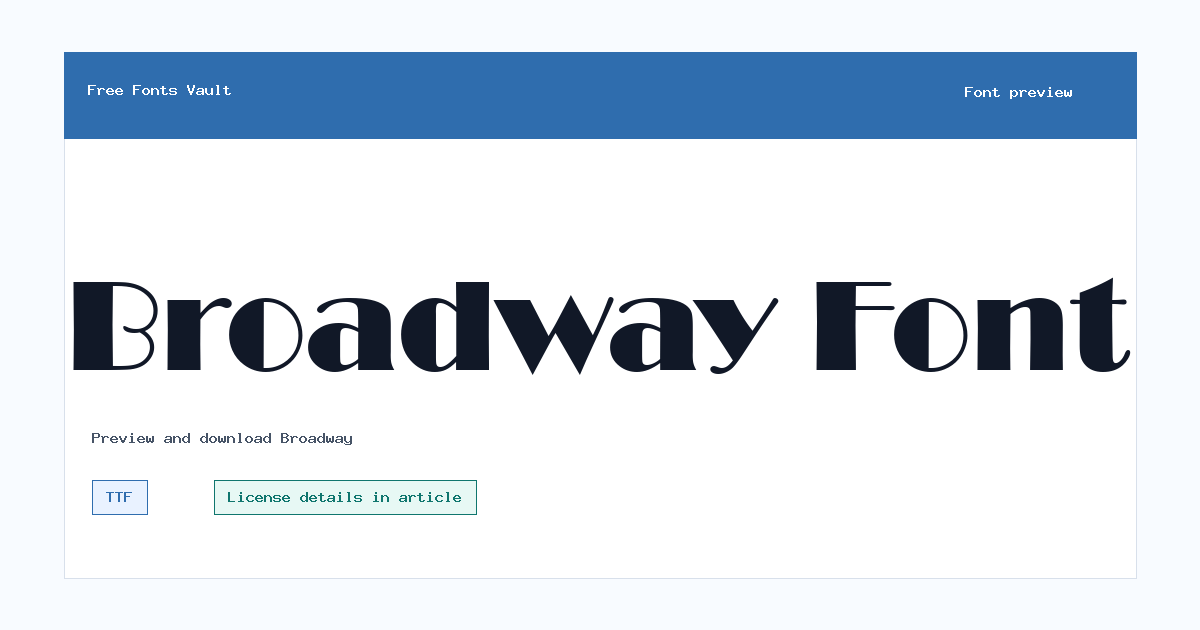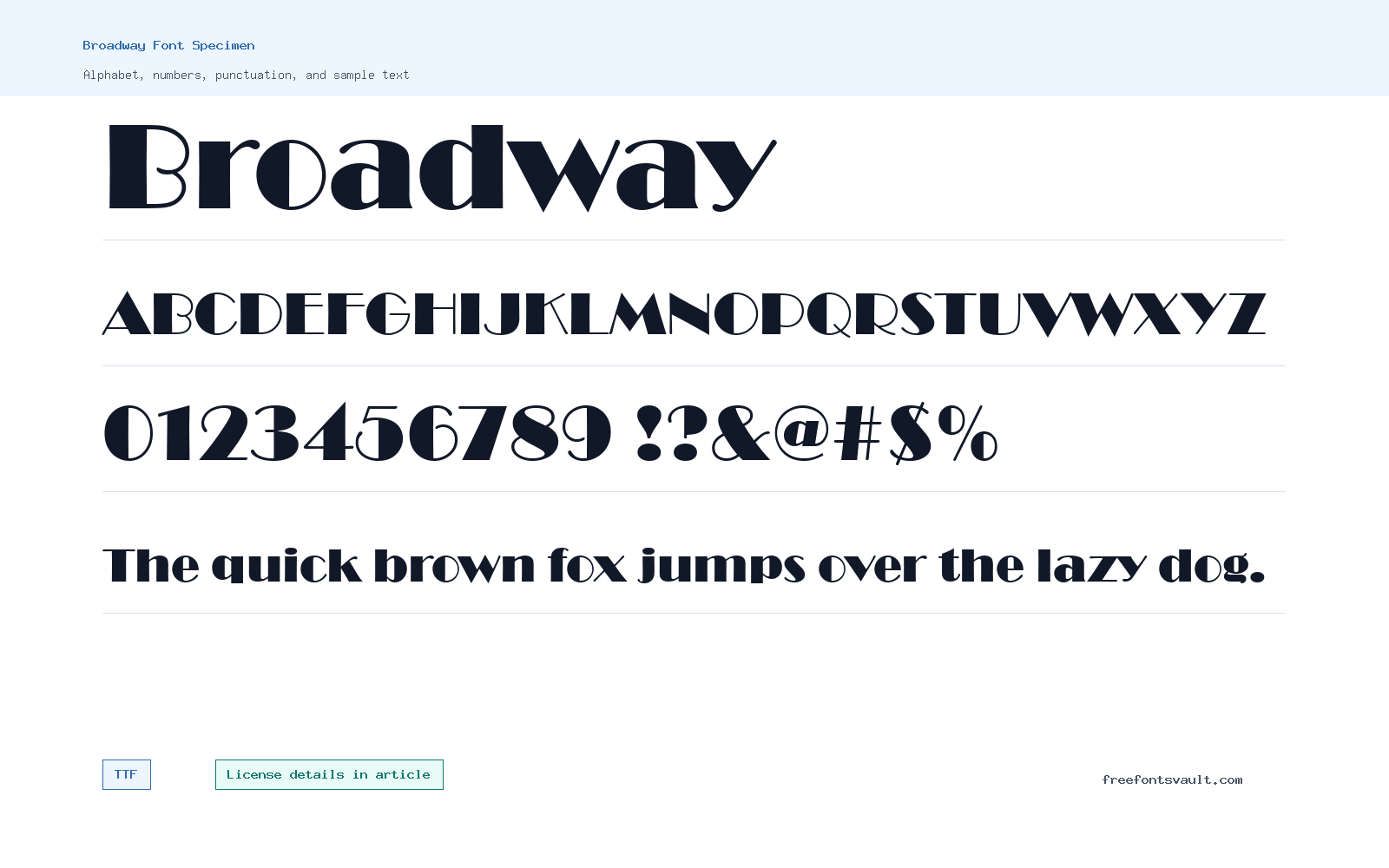
Broadway
Broadway font.
Broadway is a decorative display font with a strong Art Deco feel. It is best used at larger sizes, where its bold shapes and high-contrast letterforms can stand out clearly.
About Broadway Font
Broadway is known as an Art Deco display typeface, with sources connecting the design to Morris Fuller Benton, American Type Founders, and later work by Sol Hess. The version offered here is a regular TTF file, making it easy to test in common design apps and preview tools.
Use Broadway for short text rather than long reading. It works well for poster titles, event graphics, menu headings, theatrical layouts, vintage-style labels, and logo-style mockups. Because the style is decorative, test your exact words in the preview before downloading, especially if you need small sizes or mixed-case text.
Broadway has a theatrical mood, so it works best when the design is comfortable being noticed. Give it space, use it for one main message, and avoid stacking too many decorative fonts around it. A simple background and a quieter companion font usually make Broadway look more polished.
If you are testing it for a logo, poster, restaurant menu, or event title, preview the final wording rather than judging only the alphabet. Some decorative letters create strong shapes next to each other, and small spacing changes can make the difference between a charming vintage look and a crowded headline.
- Decorative Art Deco style with high contrast and strong display presence
- Strong vintage personality for one-line titles and logo-style mockups
- Best supported by simple companion typography for practical information
- Posters, signs, event titles, and theatrical-style headings
- Vintage-inspired labels, menu headers, invitations, and short display text
- Jazz-age graphics, theatre posters, restaurant branding drafts, and event announcements
References for Broadway connect the typeface with Morris Fuller Benton and American Type Founders, with Sol Hess also named in later Broadway-related sources. The file copyright line names URW Software & Type GmbH, The Monotype Corporation, and Microsoft Corporation.
Keep the font for short, attention-grabbing text. Pair it with a plain serif or sans serif for body copy, and check spacing carefully because decorative display letters can look tight in longer words.
What kind of font is Broadway?
Broadway is a decorative Art Deco display font suited to large headlines and short design text.
Is Broadway good for body text?
No. Its display style is better for titles, signs, posters, and short labels than paragraphs.
Who designed Broadway?
Broadway is commonly associated with Morris Fuller Benton and American Type Founders, while Sol Hess is also named in sources for Broadway-related additions. The specific TTF file here carries copyright notices for URW, Monotype, and Microsoft.
How do I make Broadway look cleaner in a layout?
Use it sparingly, keep the text short, and pair it with a plain font for addresses, descriptions, prices, and other details.